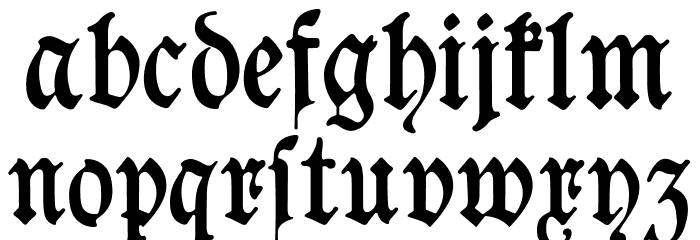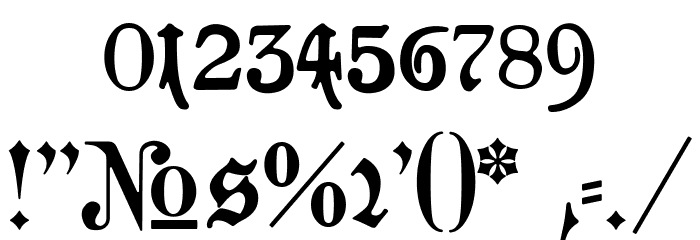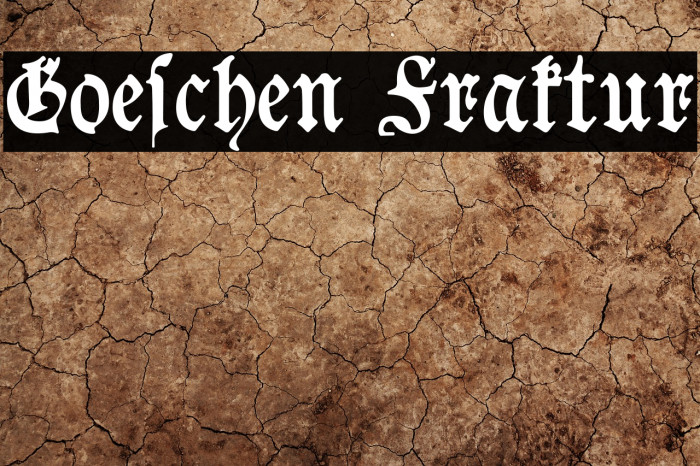
Goeschen Fraktur Font
This font embodies the traditional and ornate characteristics of Blackletter typefaces, featuring intricate and angular strokes that are reminiscent of medieval script. The uppercase letters are bold and commanding, with sharp serifs and decorative elements that give them a historic and formal appearance. The lowercase letters maintain the same level of detail, with unique flourishes that enhance their visual appeal. The numerals are consistent with the overall style, presenting a cohesive look across all characters. Special characters are equally elaborate, adding to the font's decorative nature.
A traditional Blackletter font with ornate and angular strokes, ideal for historic and formal designs.
- Proposed Projects: This font is perfect for projects that require a historic or medieval aesthetic, such as book covers, certificates, invitations, or branding for vintage-themed events.
- Category: Blackletter
- Overall Style: Vintage
- Use Case: Headlines, Logos, Decorative text